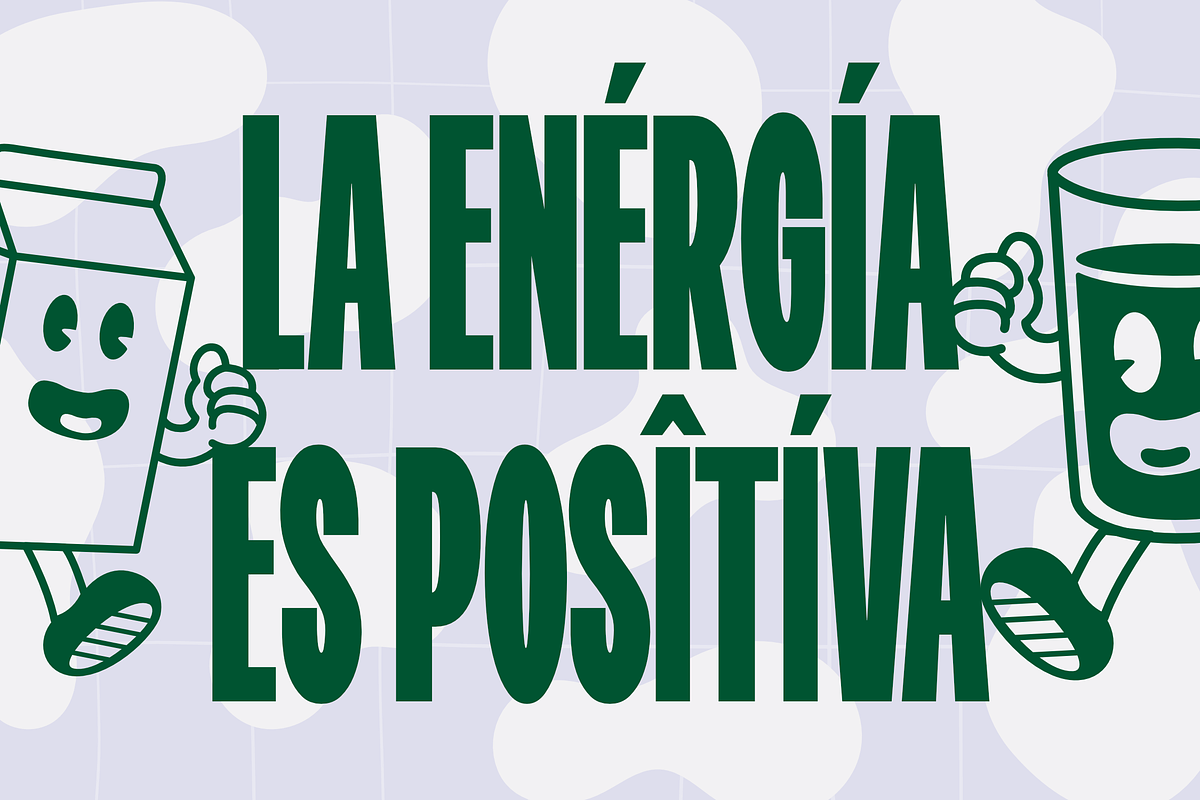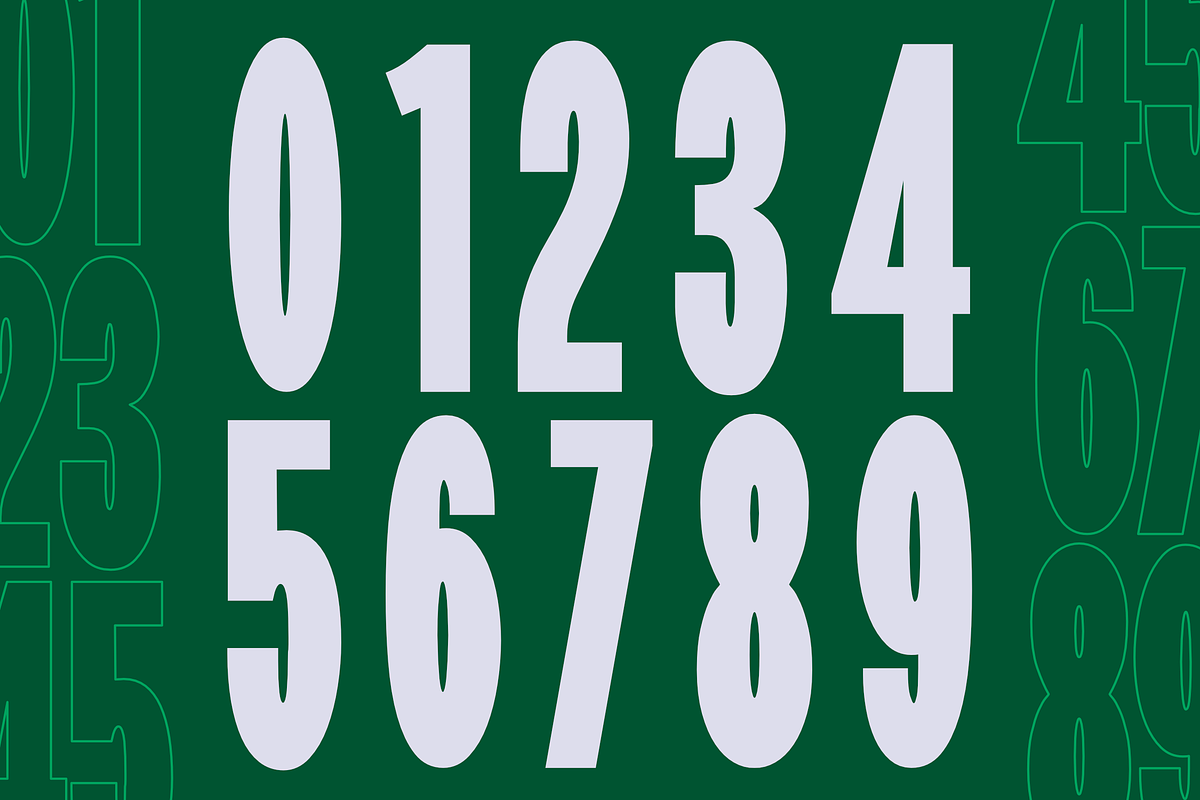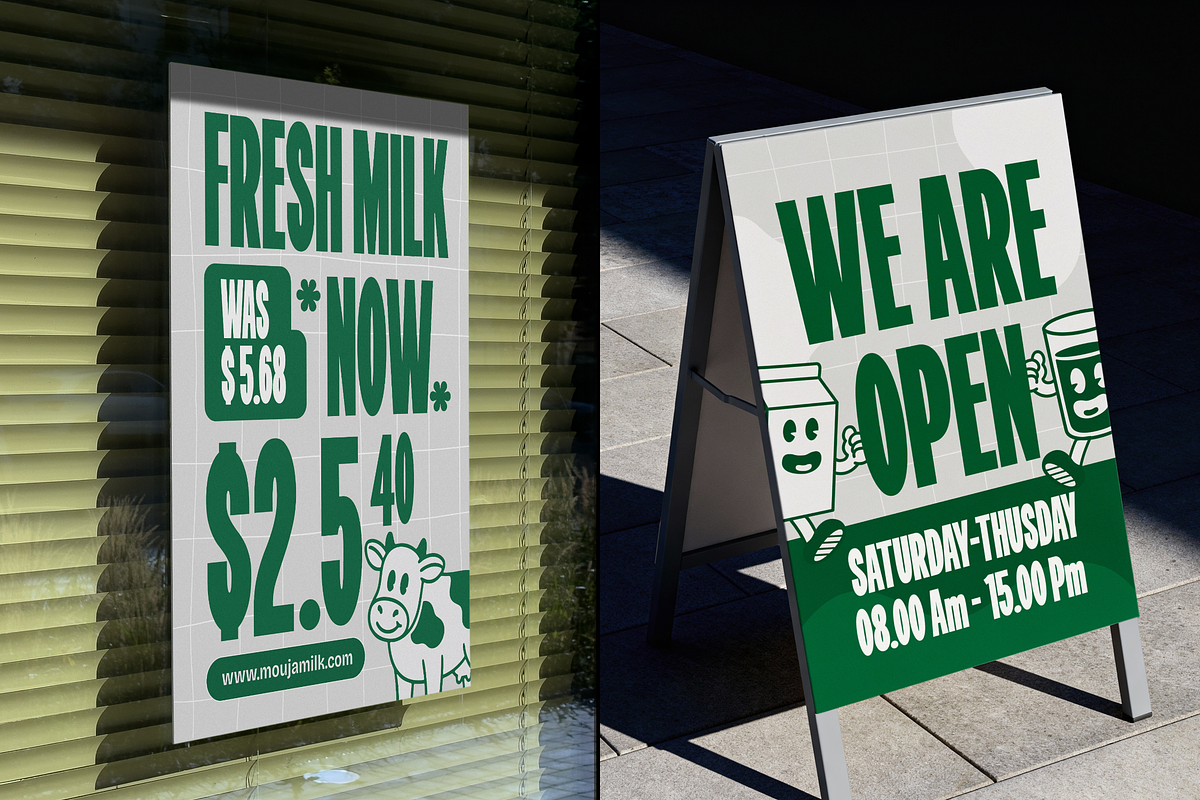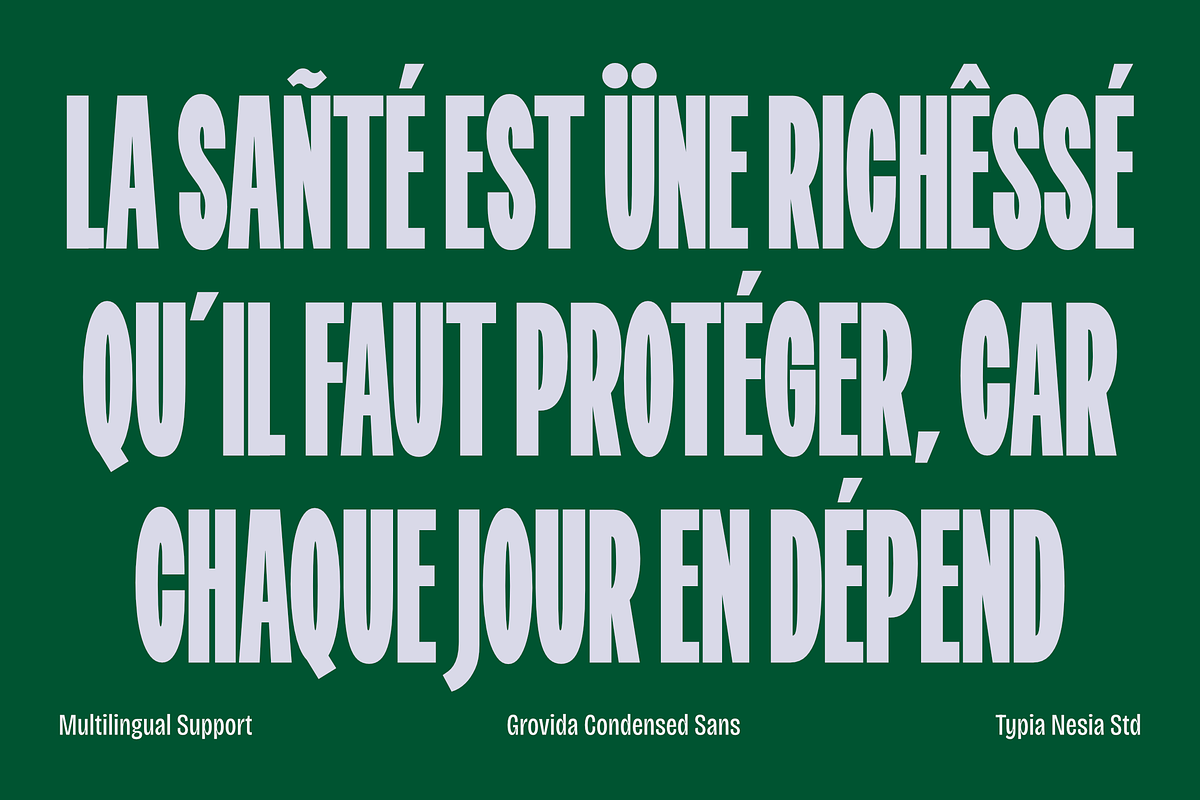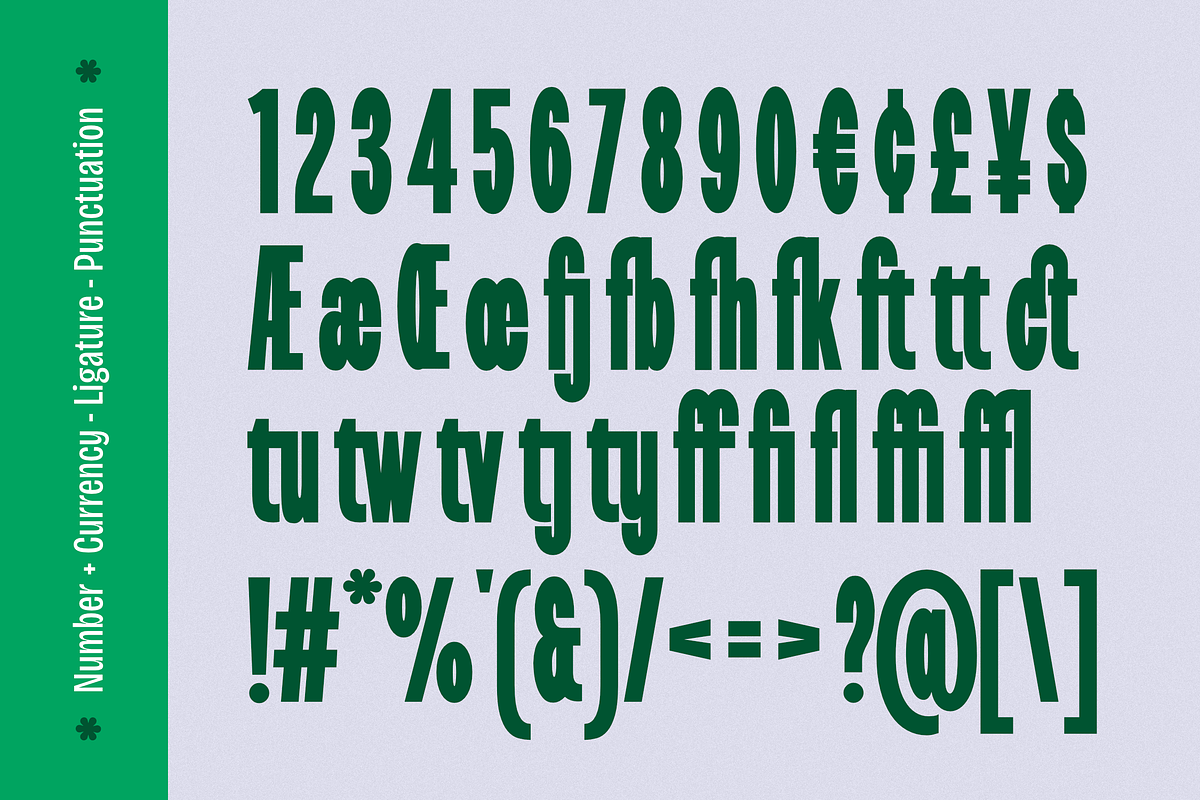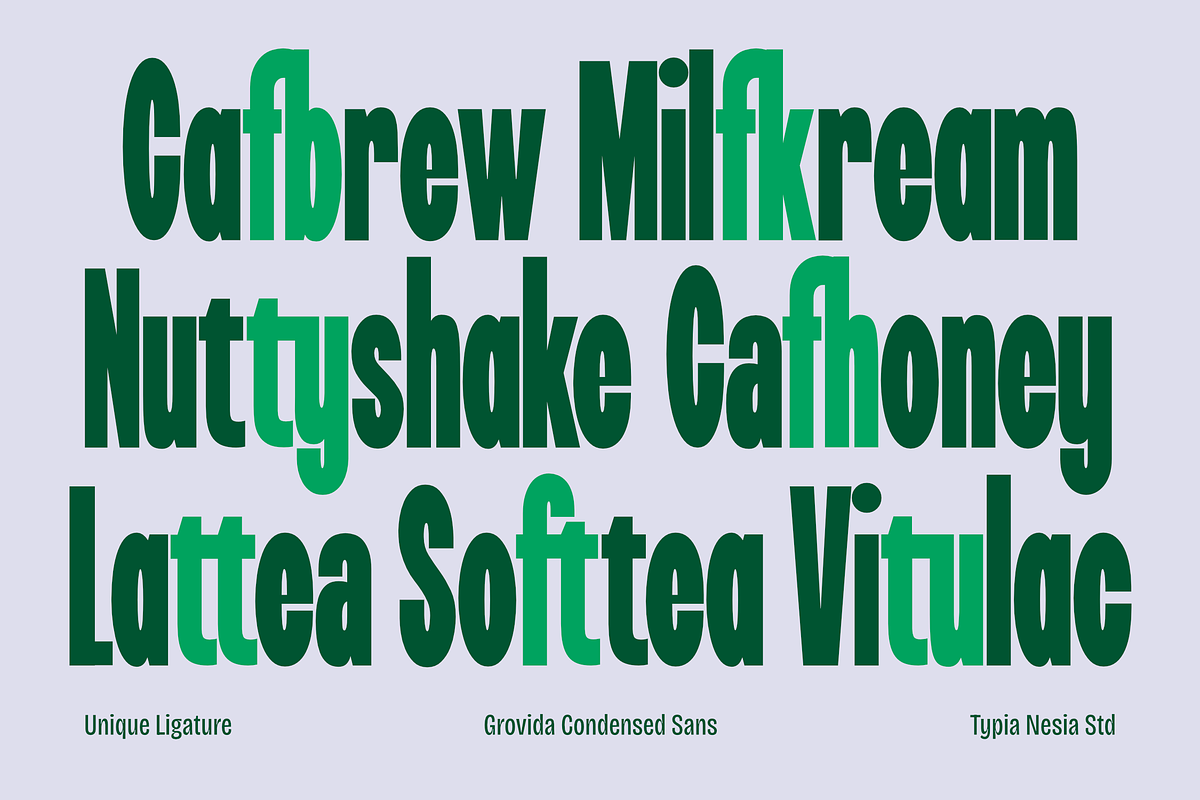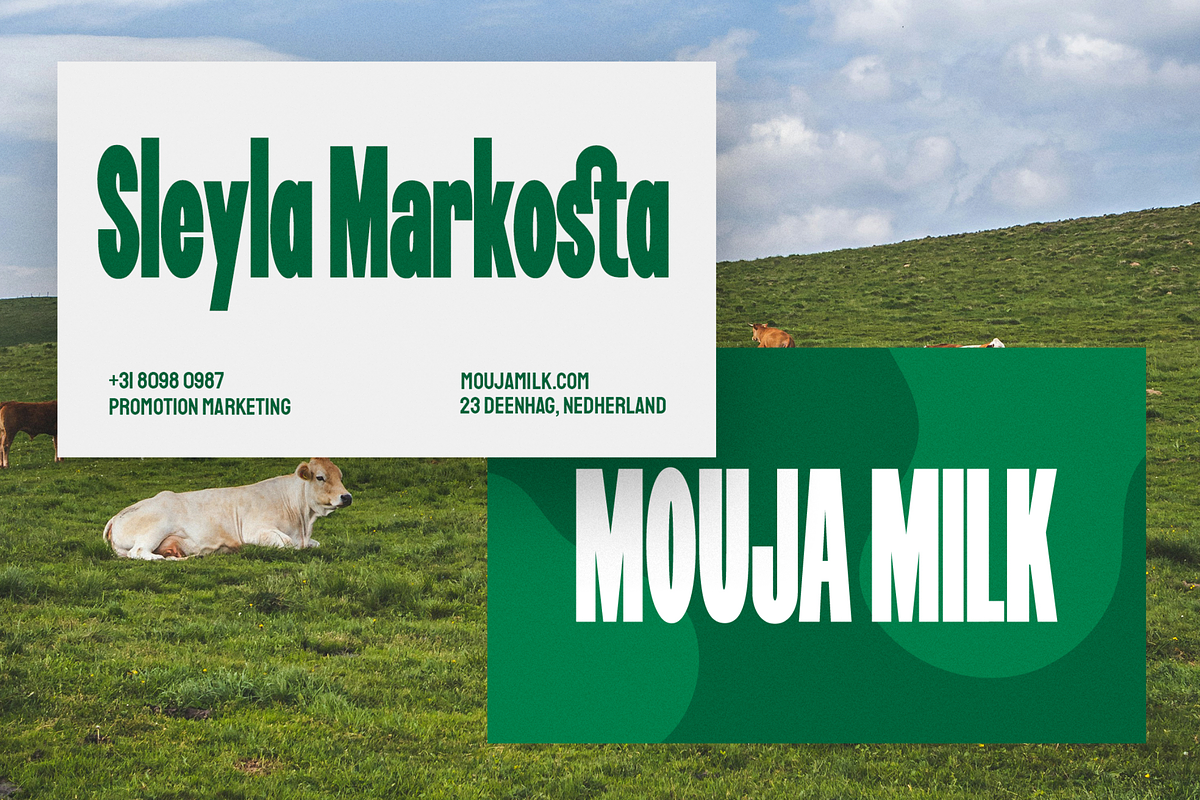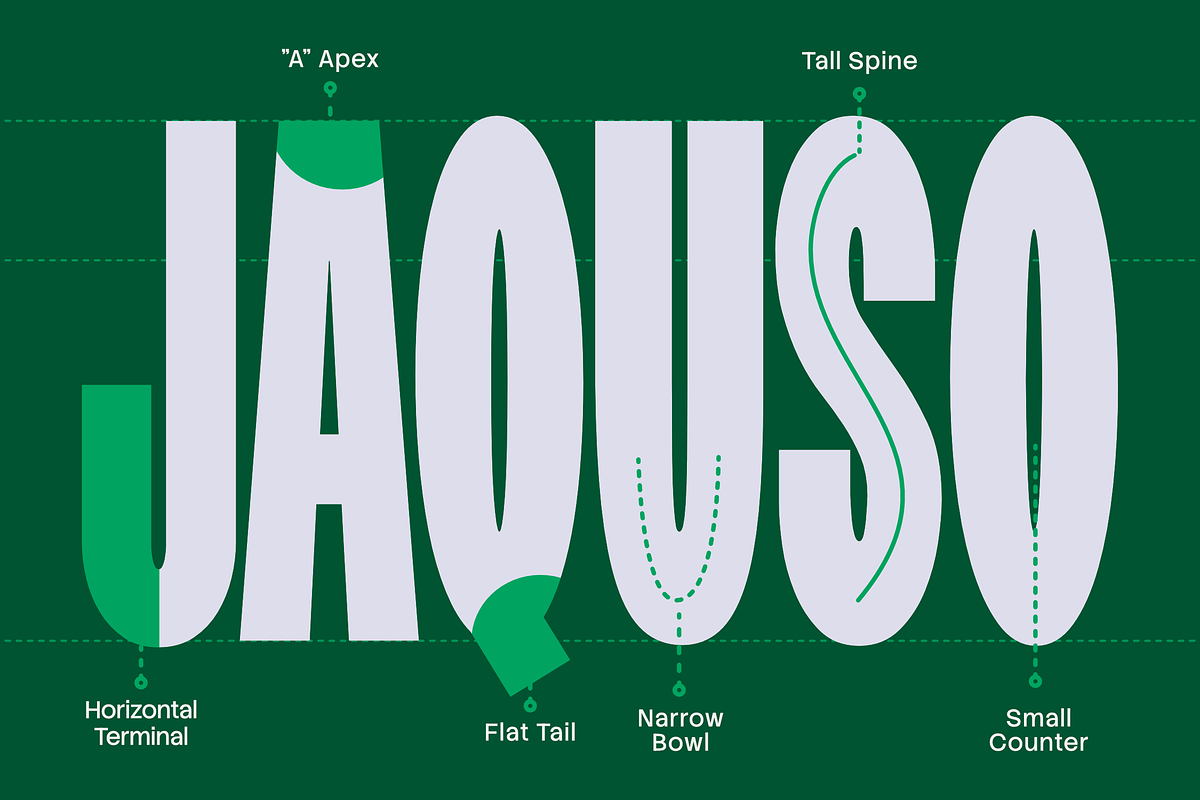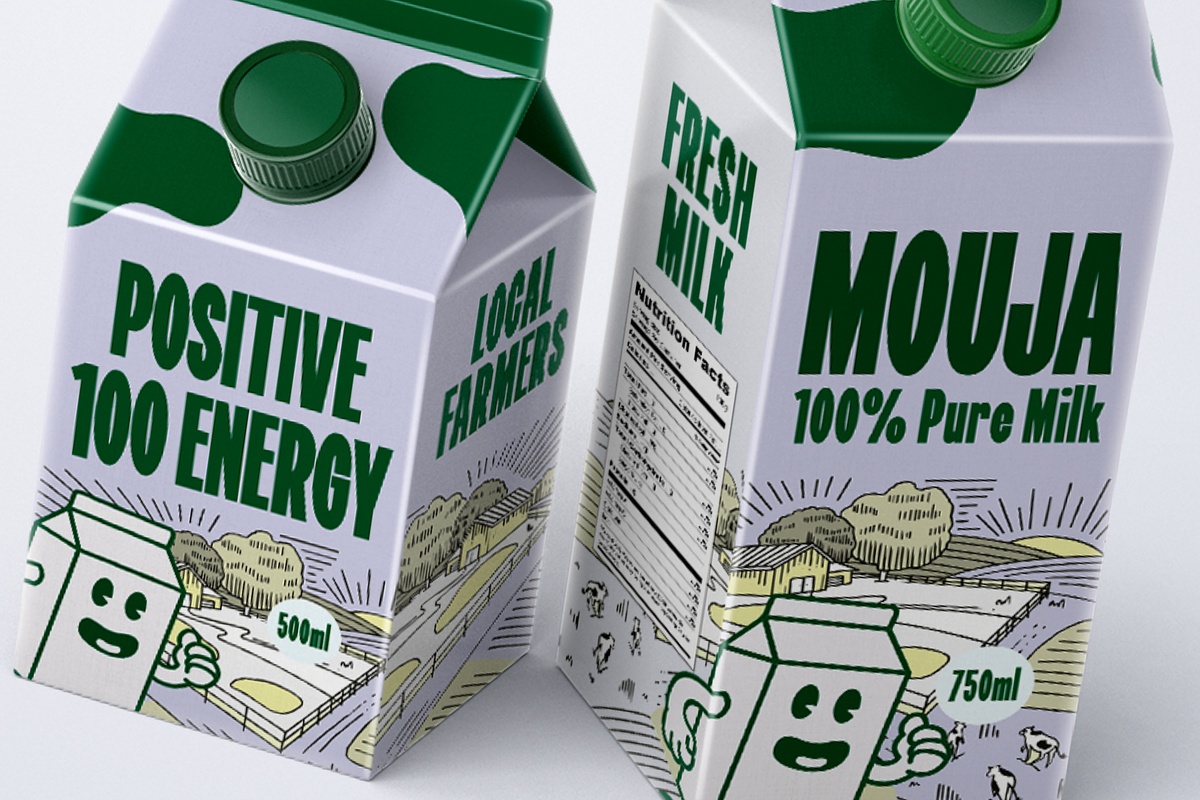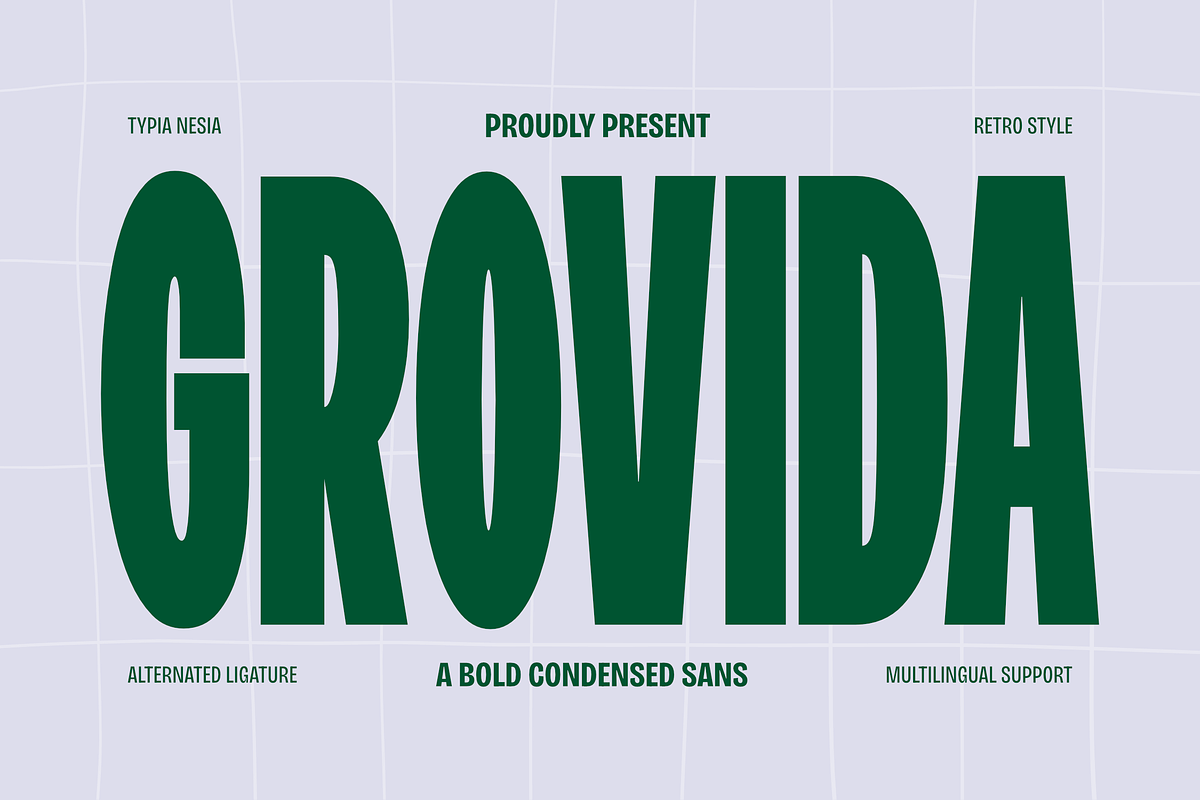
Grovida - Retro Bold Condensed Sans
Grovida - Bold Retro Condensed / Tall Sans Serif Font
Grovida is a bold retro condensed display font featuring tall proportions, strong letterforms, and stylish ligatures that bring a timeless vintage character to modern designs. Designed to create striking headlines and memorable branding, it delivers a confident visual presence while maintaining a clean and versatile appearance.
Perfect for branding, packaging, product labels, posters, editorial layouts, restaurant and café identities, advertising campaigns, social media graphics, and other creative projects. It features multilingual support, alternates, ligatures, numbers, and punctuation, providing flexibility for a wide range of design applications.
Capture attention with bold retro typography that gives every design a distinctive and memorable voice.